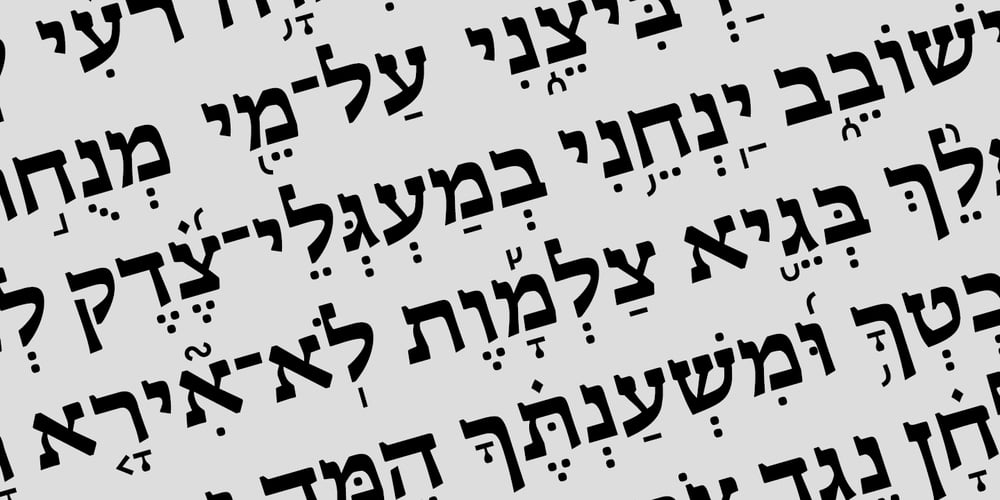
Hebrew Esther Tanach Font Family was designed by Sami Artur Mandelbaum and published by Samtype. Hebrew Esther Tanach contains 3 styles and family package options. This is a font to build an hebrew Bible (Tanach) or any Hebrew prayer book.Hebrew Esther Tanach has all unicode hebrew marks and others like, ShevaNa, Dagesh Chazak, Qamats Katan and Cholam Chaser.This font has a complex and exclusive programmation of opentype features.This font is very good to read even in small texts